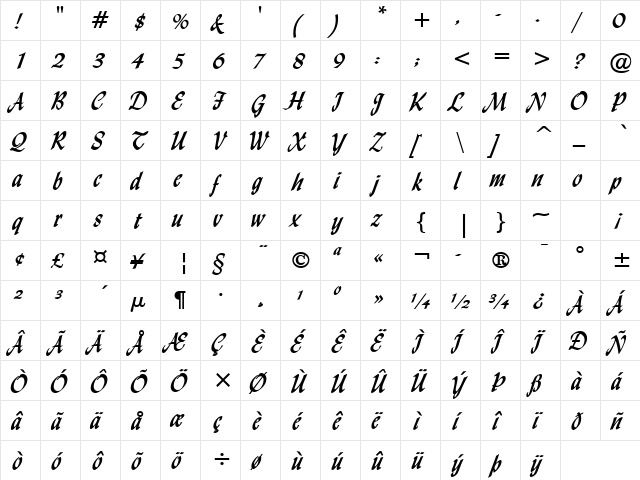
Lynda Cursive Bold
Design Context for Lynda Cursive Typeface
Lynda Cursive brings a calligraphic fluidity to the page — its connecting strokes and expressive curves give it an unmistakably human quality. Its bold stroke weight gives it real presence on the page.
Font Pairing: Combine Lynda Cursive with a simple geometric sans for maximum contrast — the tension between flowing curves and clean structure is a classic typographic pairing.
Pro Tip: Pair Lynda Cursive with a clean sans-serif for supporting text. The contrast between fluid script and geometric structure creates an elegant typographic hierarchy.